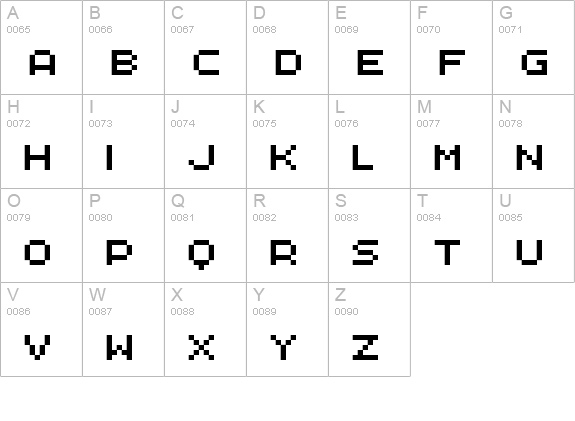
FFF Interface01 Font Details
The FFF Interface01 font is a sleek and modern typeface that exudes a sense of sophistication and professionalism. With its clean lines and sharp edges, this font is perfect for a wide range of design projects, from branding to web design. The geometric shapes and bold letterforms give FFF Interface01 a distinctive look that will make your text stand out. What's even better is that FFF Interface01 is available for free download at FontsMarket.com. This means you can easily access this stylish font without any cost, making it a great choice for designers on a budget. Whether you're working on a personal project or a client's design, FFF Interface01 is sure to elevate your work with its contemporary style and versatility. Download it now and add a touch of sophistication to your typography!